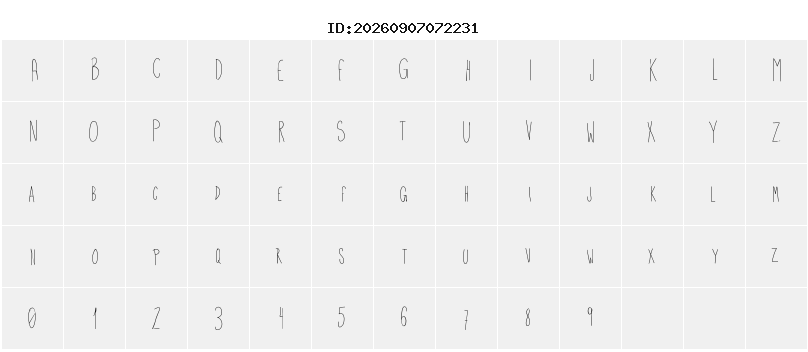
Uper.ttf is a modern, elegant sans-serif font designed for ultimate readability and visual harmony. Perfect for branding, headlines, web design, and print materials.